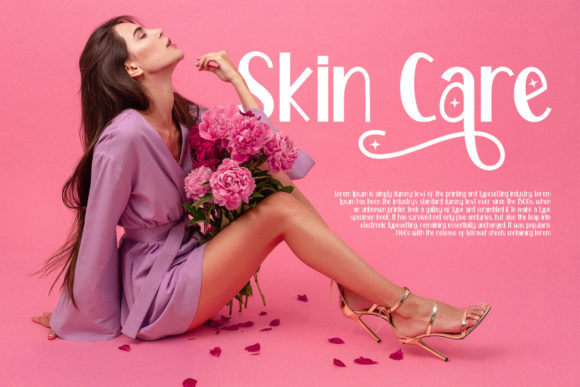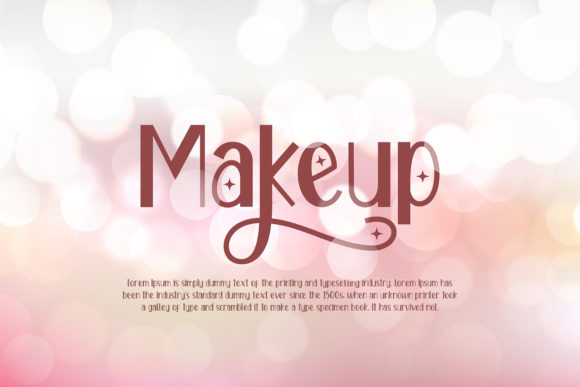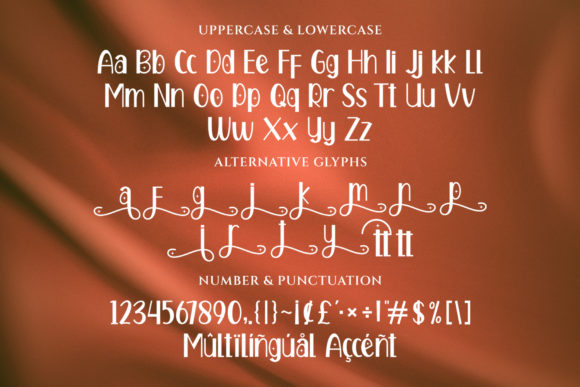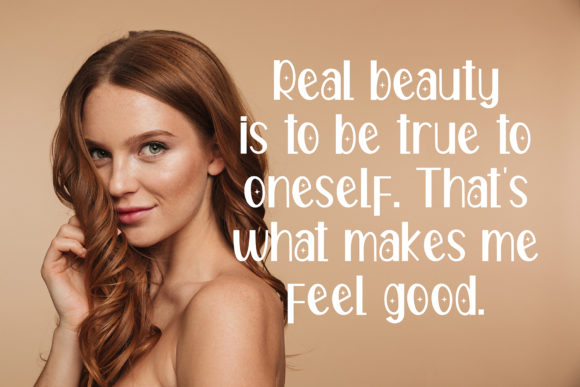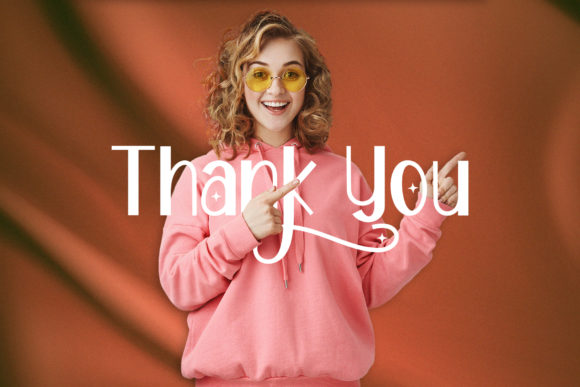
Introducing Charlotte Font: Elevate Your Designs with Style and Elegance
Are you tired of using the same old fonts in your designs? Look no further than Charlotte Font, a stylish display font that’s sure to take your projects to the next level. With its balanced and varied aesthetic, Charlotte Font is the perfect choice for designers and crafters looking to add a touch of elegance and sophistication to their work.
The Story Behind Charlotte Font
Charlotte Font was designed with one goal in mind: to create a font that’s not too thin and not too thick, but perfectly balanced. The result is a font that’s both stylish and versatile, making it suitable for a wide range of projects, from branding and advertising to packaging and digital media.
What Sets Charlotte Font Apart
So, what makes Charlotte Font so special? Here are just a few of the key features that set it apart from other fonts:
- Balanced aesthetic: Charlotte Font has a perfectly balanced design that’s neither too thin nor too thick. This makes it easy to read and visually appealing.
- Varied letterforms: Each letterform in Charlotte Font has been carefully crafted to be unique and varied, adding visual interest to your designs.
- High legibility: Despite its stylish design, Charlotte Font remains highly legible, even at smaller sizes.
- Versatile: Charlotte Font can be used in a wide range of projects, from digital media to print materials.
Uses for Charlotte Font
Charlotte Font is a versatile font that can be used in a variety of projects, including:
- Branding and advertising: Use Charlotte Font to create eye-catching logos, ads, and marketing materials that will help your brand stand out.
- Packaging design: Add a touch of elegance to your product packaging with Charlotte Font.
- Digital media: Use Charlotte Font in your digital projects, such as website designs, social media graphics, and email newsletters.
- Crafting and DIY projects: Charlotte Font is also perfect for crafters and DIY enthusiasts who want to add a personal touch to their projects.
Tips for Using Charlotte Font
Here are a few tips for getting the most out of Charlotte Font:
- Experiment with different sizes: Charlotte Font looks great at a range of sizes, from large display fonts to smaller body text.
- Pair it with other fonts: Try pairing Charlotte Font with other fonts to create interesting and dynamic typography.
- Use it consistently: Use Charlotte Font consistently throughout your design to create a cohesive and professional look.
Charlotte Font is a stylish and versatile display font that’s perfect for designers and crafters looking to add a touch of elegance and sophistication to their work. With its balanced and varied aesthetic, high legibility, and versatility, Charlotte Font is sure to become a go-to font in your design arsenal. So why wait? Download Charlotte Font today and start elevating your designs with style and elegance.